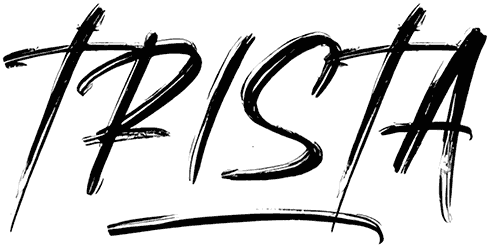
Skylarr Scott Font
With a cool and urban style, your design would be able to become a popular one and receive love. As a brush font, Skylarr Scott has a realistic letter style and conveys an artistic mood. Without lowercase letters and some numbers, this script font is still a catchy choice for lots of creative designs, namely posters, banners, titles, and so on.
Font By Gassstype Studio
Designed by: Gassstype